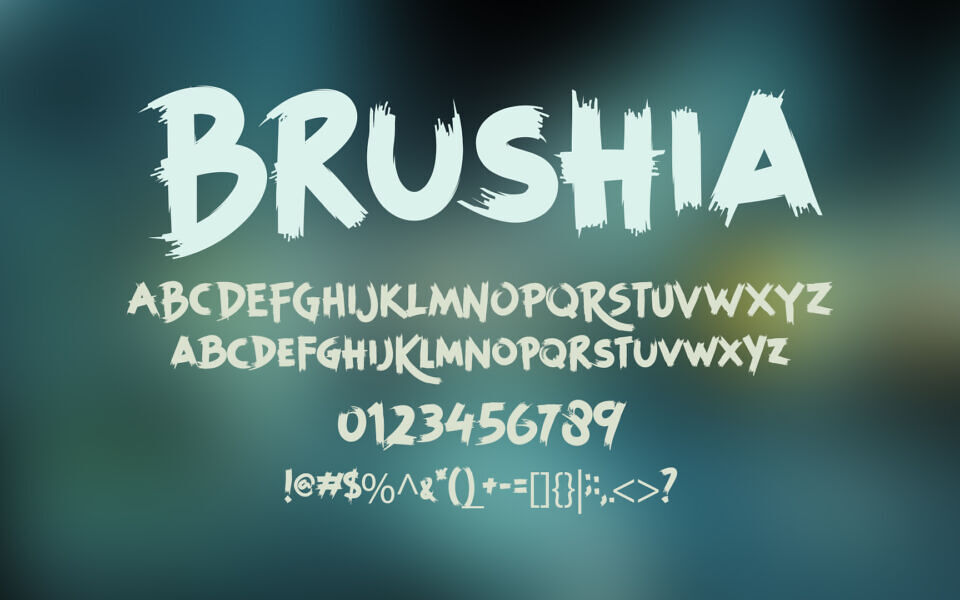
Mar 23, 2025Script & HandwrittenBrushia Font is a bold, hand-drawn typeface with a raw, brushstroke style. Its rugged, organic letters bring a gritty, artistic vibe, perfect for edgy designs, posters, or branding. Font DetailsDesigned by: Chubix99 (Beta Dine)WebsiteLicense: Free for personal use Download Brushia FontFile size: 35.28 KBCreated: March 23, 2025Updated: March 23, 2025 Download Explore similar fonts Roughren Font Righman Font Dobry Pen Font Againts Font Burnside Font Road Sooned Font # Artistic# Bold# Branding# Brush# Edgy# Fun# Graffiti# Hand-drawn# Playful# Rough# Strong# Urban